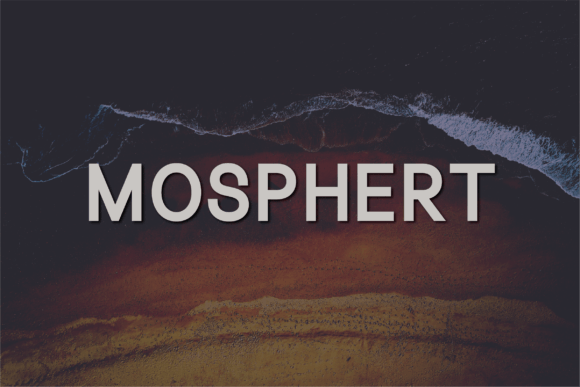
**Introducing Mosphert Font: The Epitome of Modern Elegance and Professionalism**
In the realm of digital expression, where first impressions reign supreme, your words have the power to captivate and inspire. And what better way to showcase your message than with a font that exudes both sophistication and undeniable charisma?
Allow us to present Mosphert Font, a sans serif masterpiece meticulously crafted to elevate your designs to new heights. Its clean lines and impeccable curves evoke a sense of timeless allure, perfect for conveying your ideas with impact and style.
**Why Mosphert Font is the Ultimate Choice for Your Creative Endeavors:**
- **Command Attention with a Touch of Class:** Mosphert Font's sophisticated design instantly grabs attention, setting your words apart from the mundane. Whether you're crafting a captivating resume, designing an unforgettable invitation, or creating eye-catching advertisements, Mosphert Font will elevate your message with an air of undeniable elegance.
- **Versatility at Your Fingertips:** From the delicate curves of wedding invitations to the bold statements of logos and posters, Mosphert Font effortlessly adapts to any design concept. Its versatility knows no bounds, making it the perfect choice for a wide range of creative projects.
- **Unleash Your Creativity with Confidence:** Mosphert Font is more than just a collection of characters; it's an invitation to unleash your imagination. Its clean and modern aesthetic provides a solid foundation for your ideas to flourish, empowering you to create designs that truly resonate with your audience.
- **Make a Lasting Impression:** In today's competitive digital landscape, it's essential to make a lasting impression. Mosphert Font empowers you to do just that, leaving an unforgettable mark on your readers and clients alike. Its timeless design ensures that your message will stand the test of time, creating a lasting impact that will elevate your brand to new heights.
Join the ranks of discerning designers and creatives who rely on Mosphert Font to elevate their work. Experience the transformative power of a font that combines elegance, versatility, and a dash of modern flair.
Discover Mosphert Font today and unlock a world of creative possibilities that will leave a lasting impression on your audience.